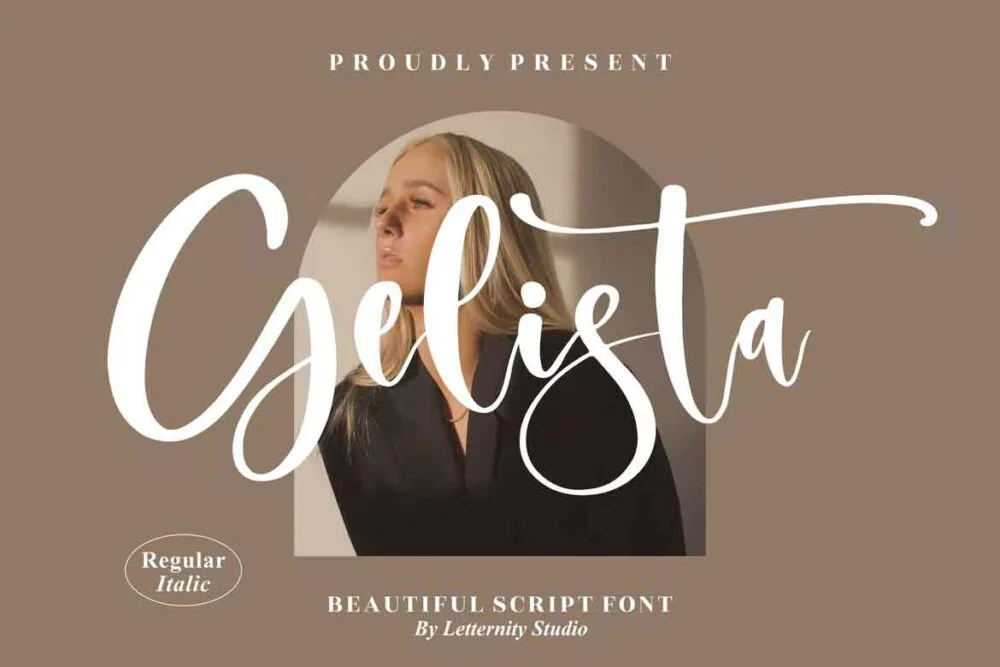
Gelista Beautiful Script Font
Gelista Beautiful Script Font Hi ladies & gentlemen, this is one of our fonts suitable to complement your digital and printed creative products. This font is perfect for…
Gelista Beautiful Script Font Hi ladies & gentlemen, this is one of our fonts suitable to complement your digital and printed creative products. This font is perfect for posters, social media posts, branding, personal projects, etc.
Where Gelista Beautiful Script Font works best
A short phrase in Gelista Beautiful Script Font carries warmth that a typeset sans cannot fake; keep the rest of the card plain.
Chalkboard-style headings in Gelista Beautiful Script Font make a menu feel hand-made. Keep the dish descriptions in a simple face so prices stay readable.
One line of Gelista Beautiful Script Font over a photo is enough; the script carries the tone and the caption does the work.
What kind of work does Gelista Beautiful Script Font suit?
It sits in the Script And Handwritten group and reads as branding, creative, script, script and handwritten. That makes it a candidate wherever those qualities help: headings, packaging, social graphics and brand work. Set it at the size you plan to use before deciding.